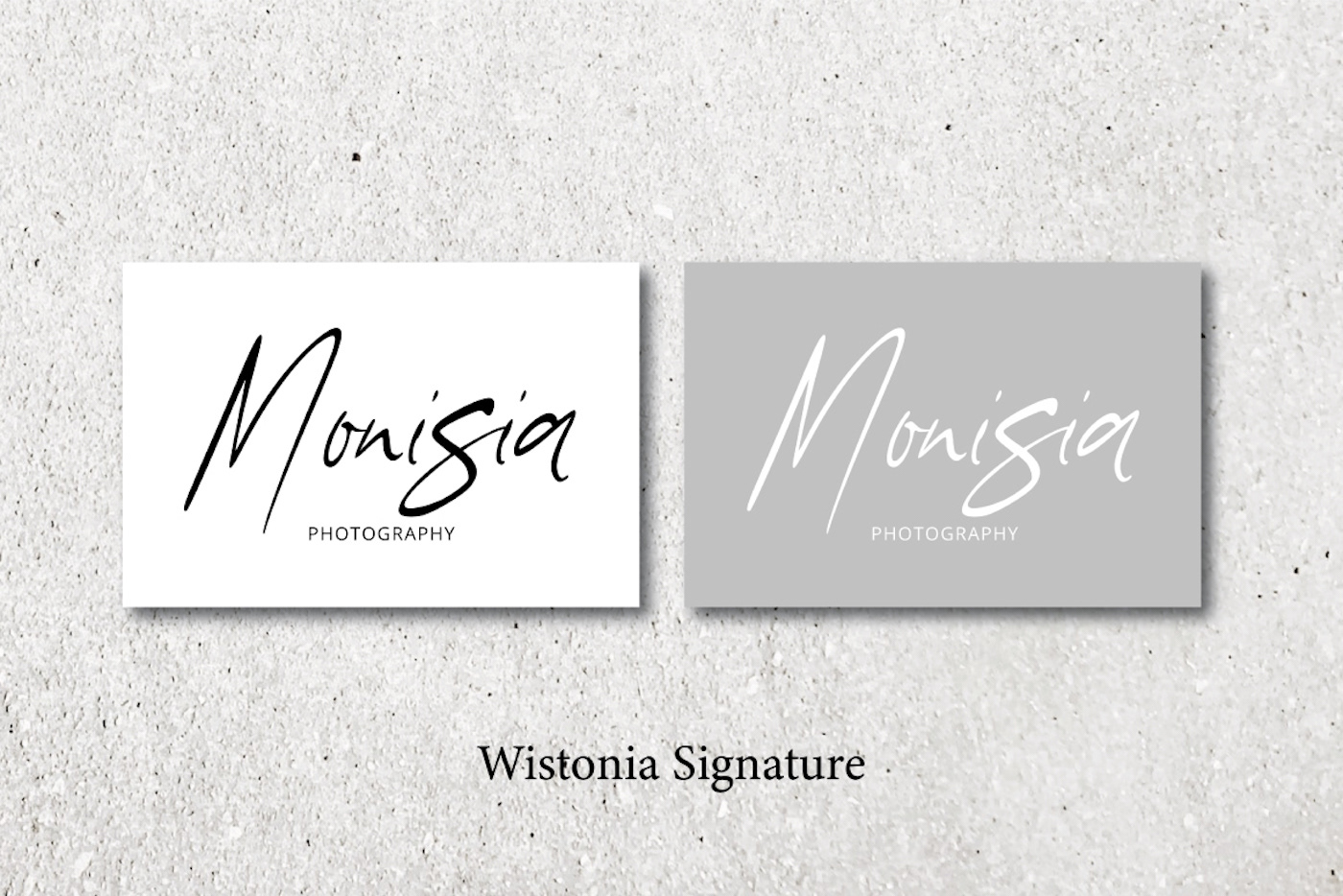
Wistonia Signature is a free handmade signature style font from Tebal Tipis std.. It comes with 200+ glyphs. The alternative characters were divided into several Open Type features such as Swash, Stylistic Sets, Stylistic Alternates, and Ligatures.